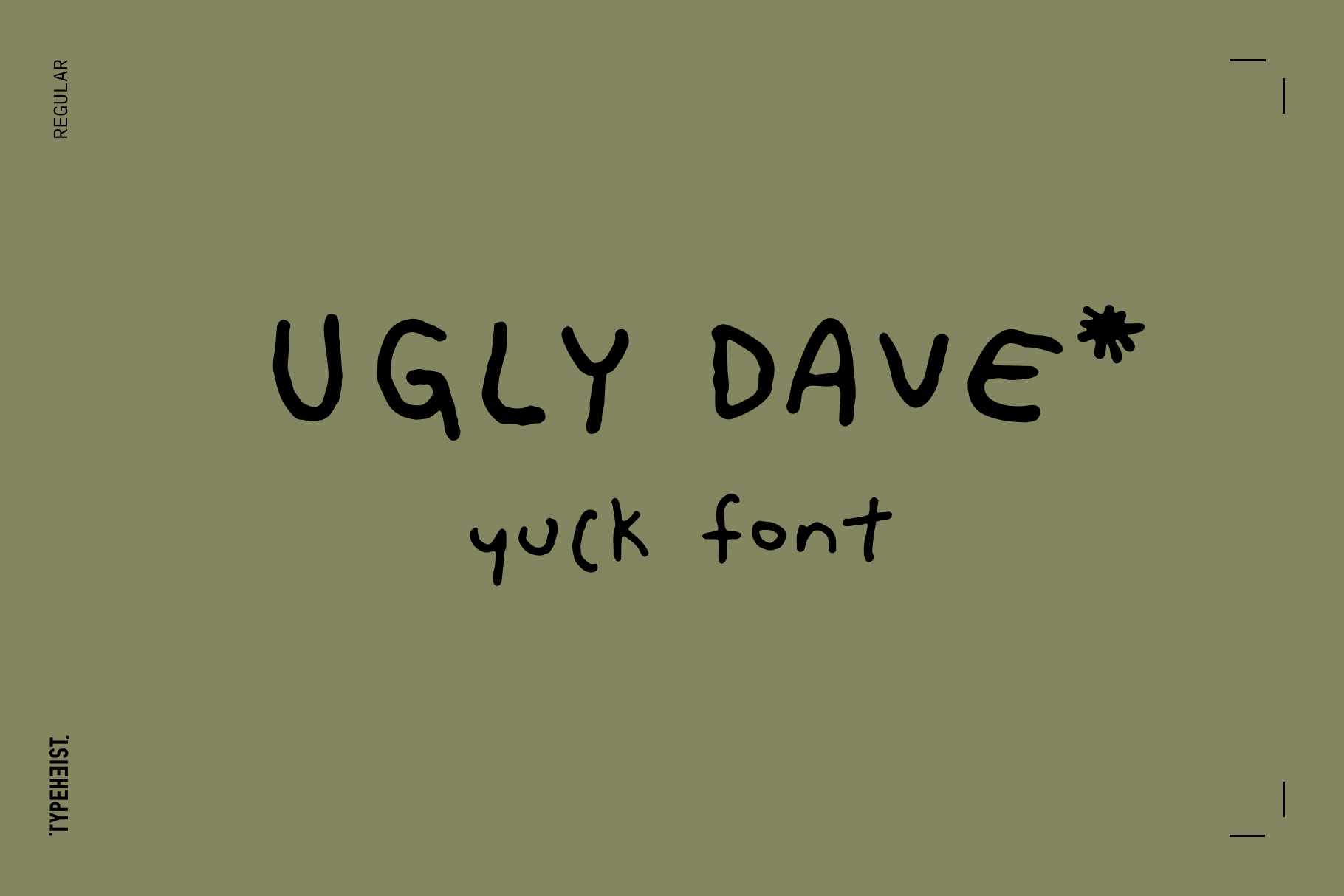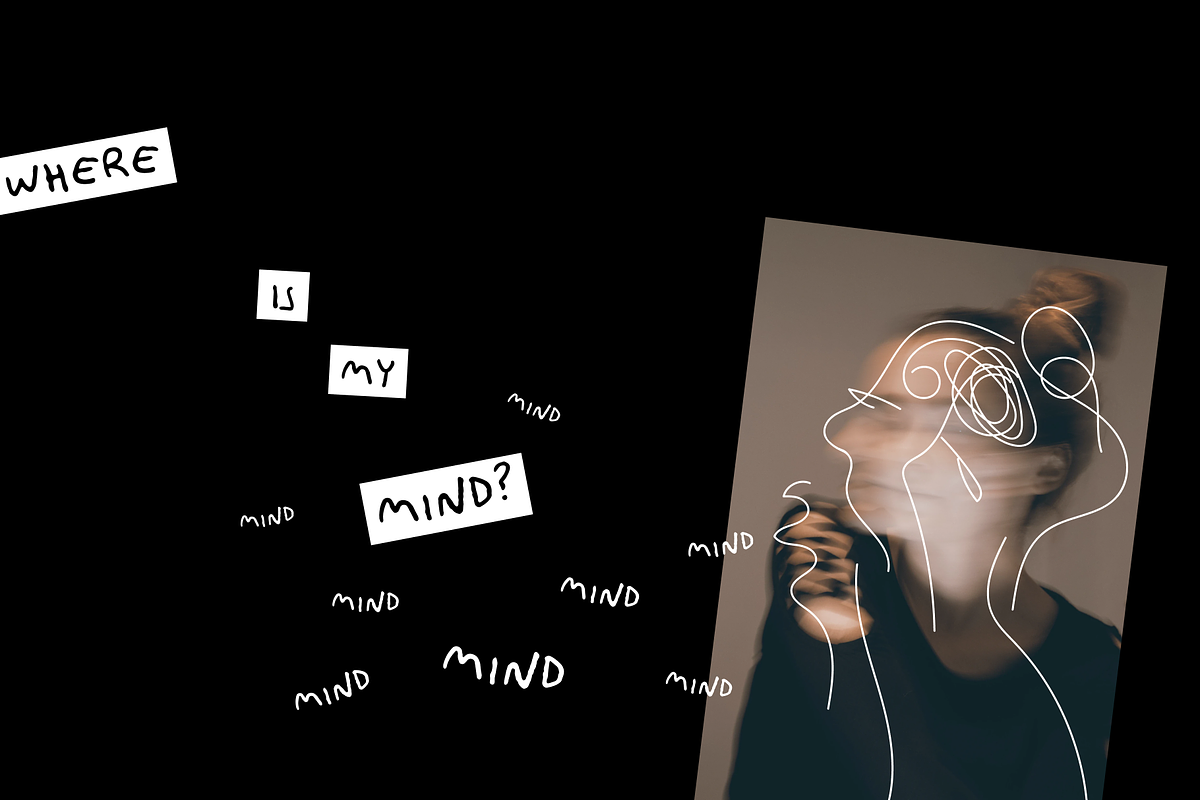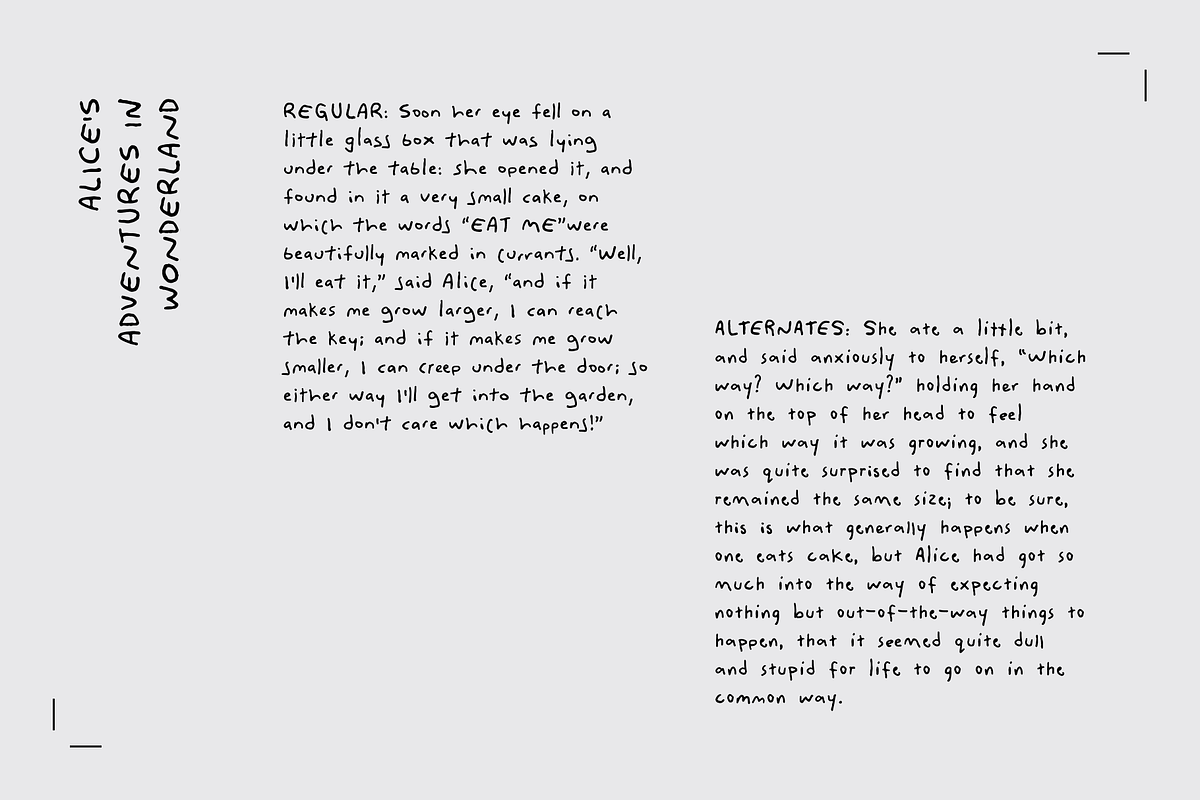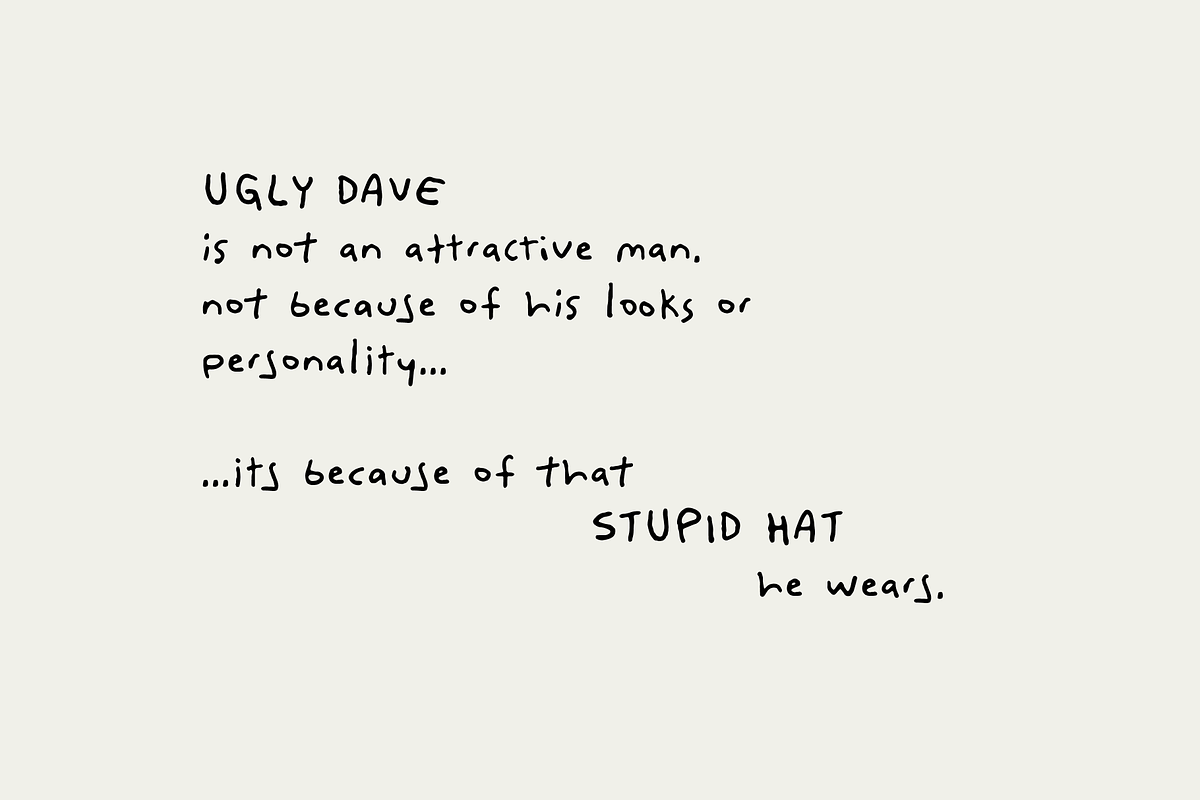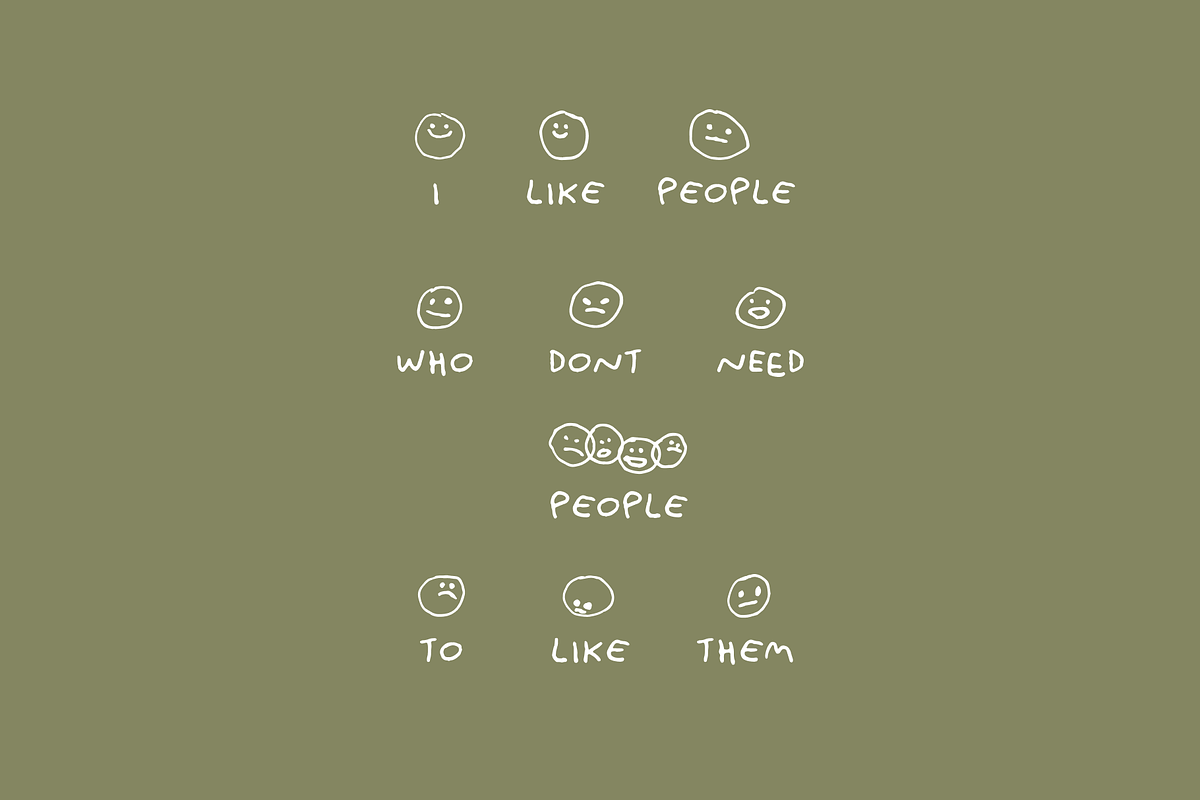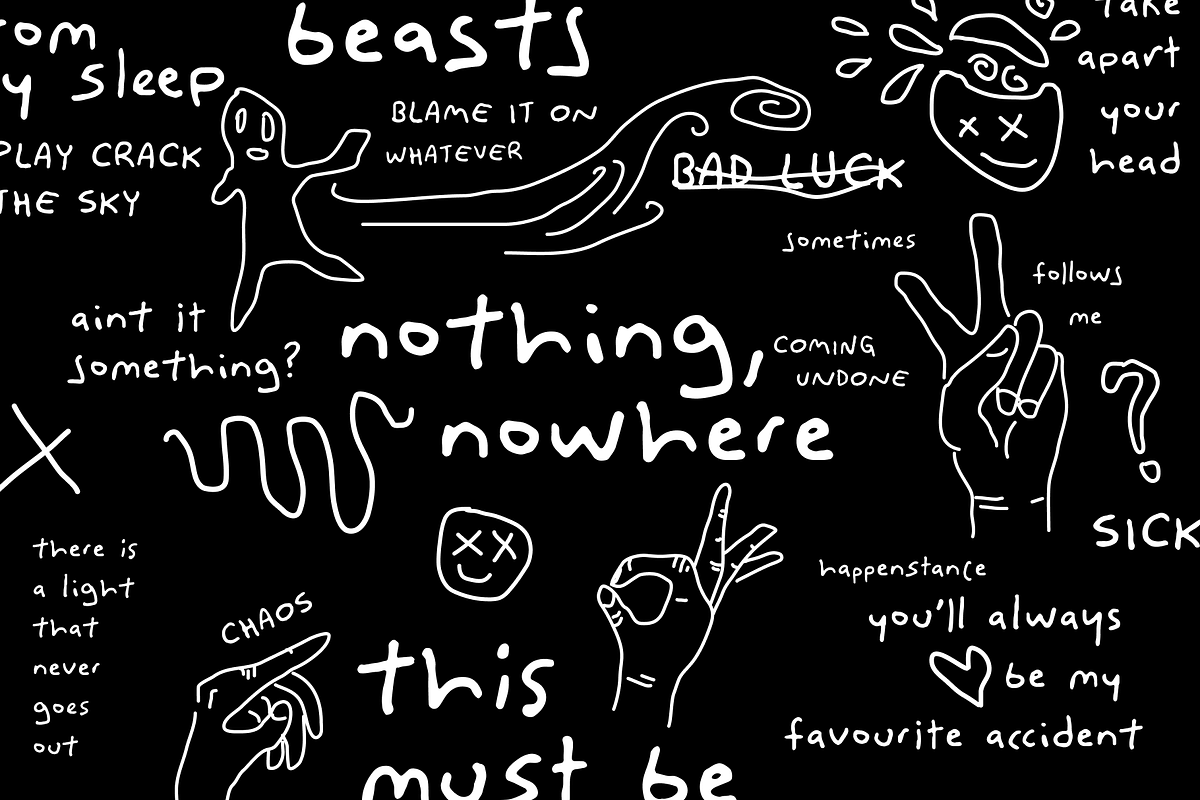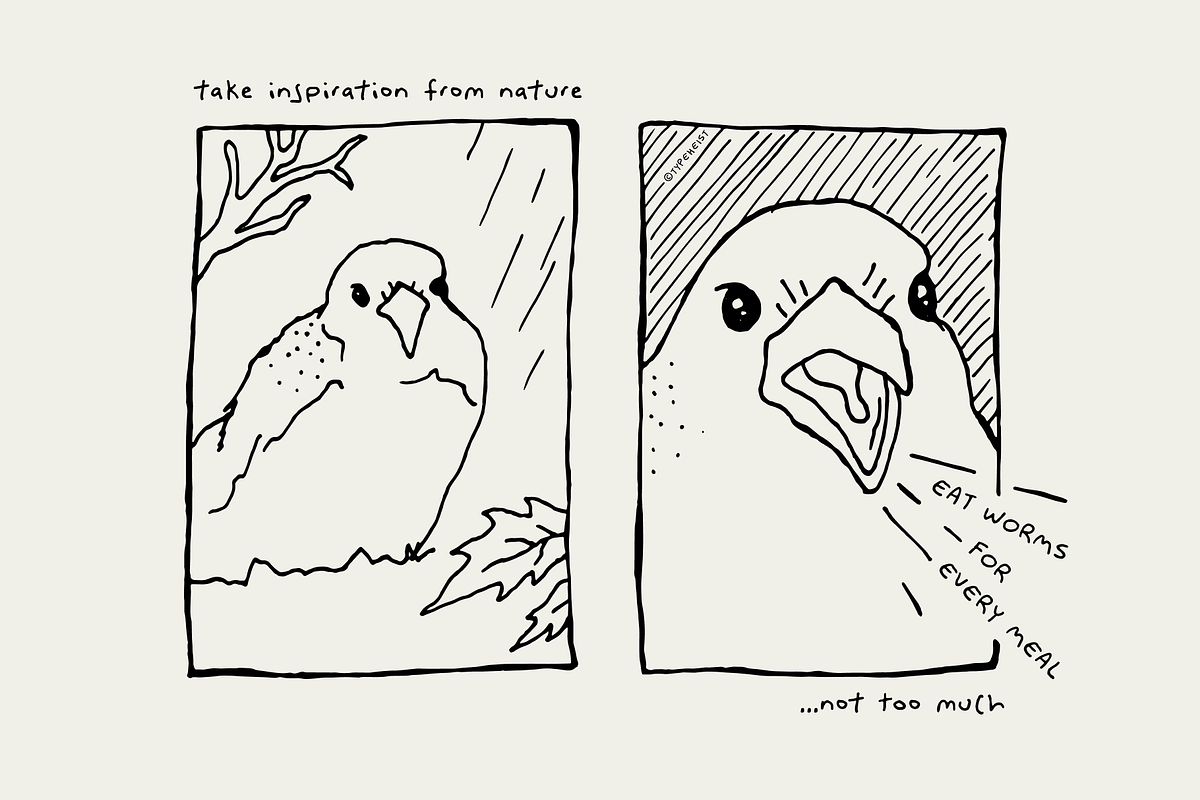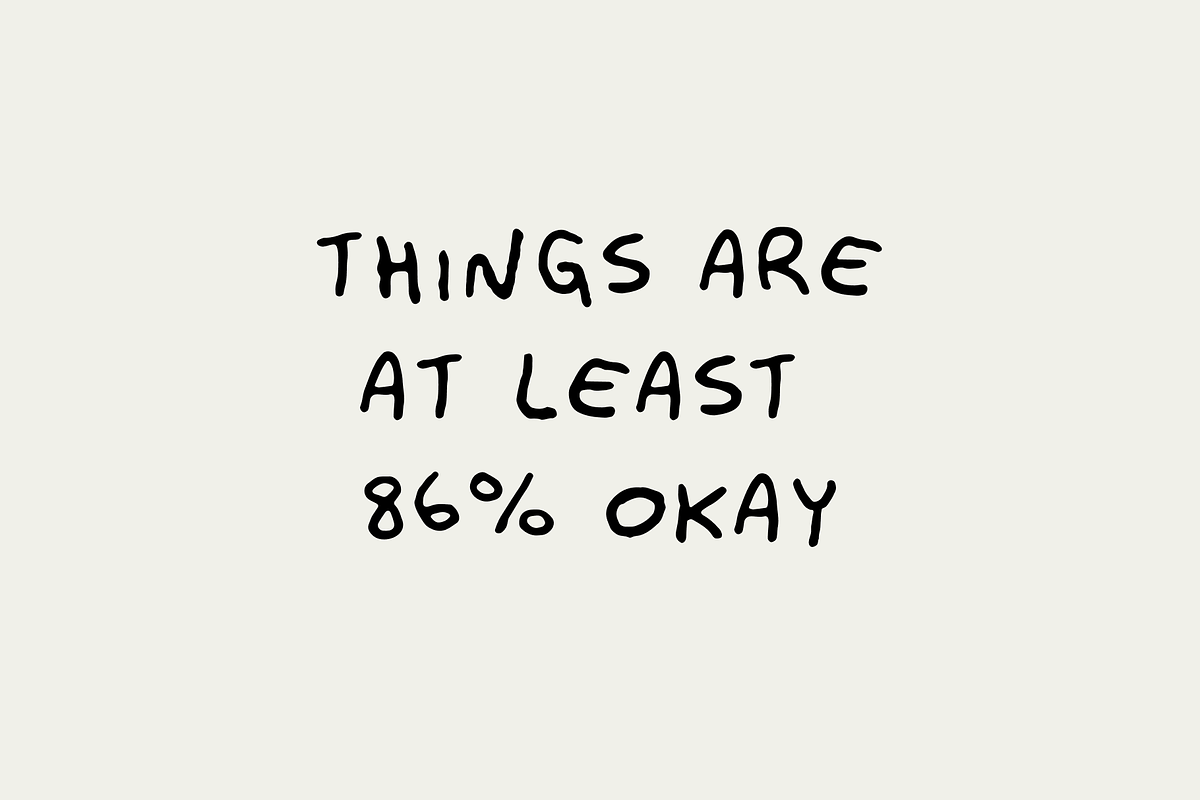
Ugly Dave Bad Handwriting Font
The short: a bad handwriting font.
The long: Ugly Dave is not a 'nice' font... it's pretty much the bare minimum in terms of handwriting. It's messy and childish and some may even call it yuck. On the positive side - it's almost legible!
However, if your handwriting is going to be bad, why not make it consistently bad? Don't worry, Ugly Dave has your back. You can now adorn your designs with writing that makes it look like you never went to school! Awesome.
Ugly Dave Regular
Ugly Dave Alternates